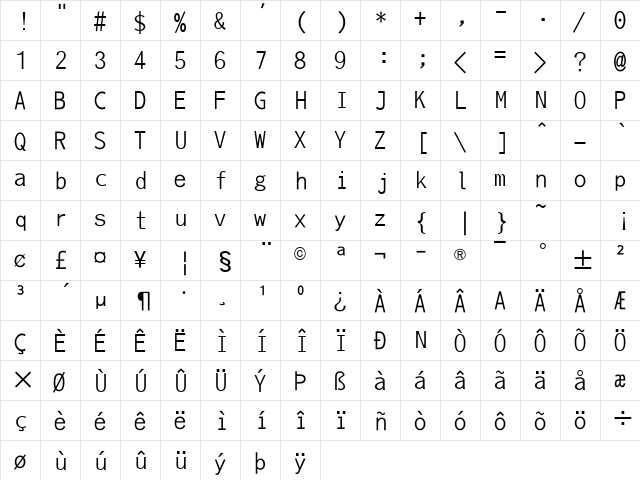
Togoshi Mono Regular
Design Context for Togoshi Mono Typeface
Togoshi Mono uses fixed-width spacing throughout, giving it the structured, systematic character associated with coding environments and technical documentation.
Pro Tip: Use Togoshi Mono with slightly increased line-height for extended reading — fixed-width spacing can feel dense in longer passages without extra breathing room.